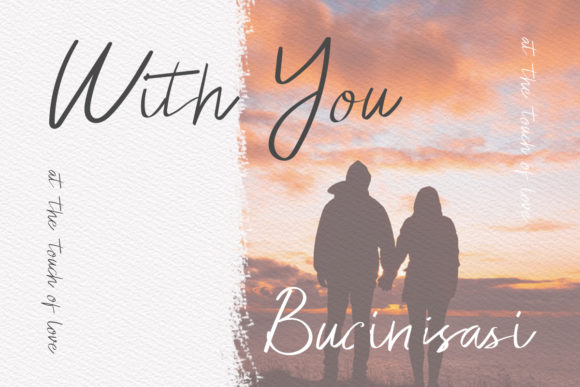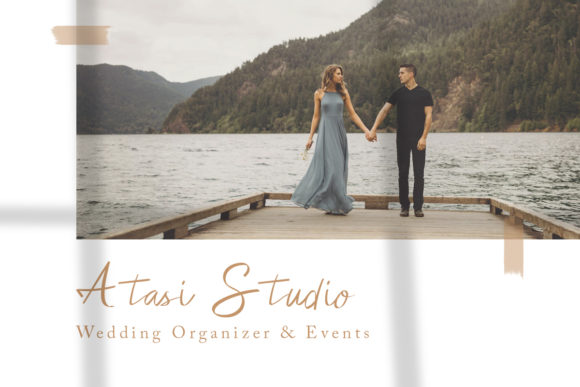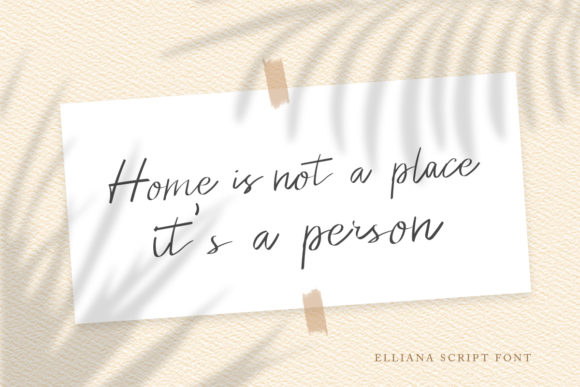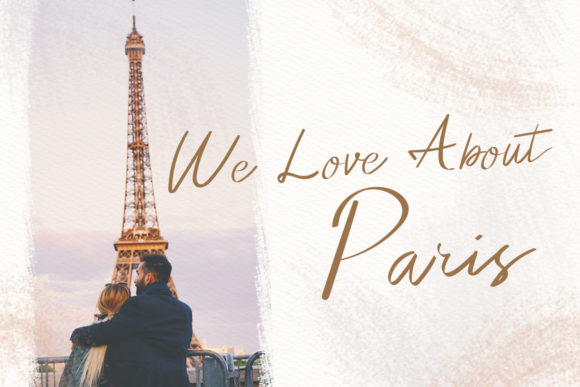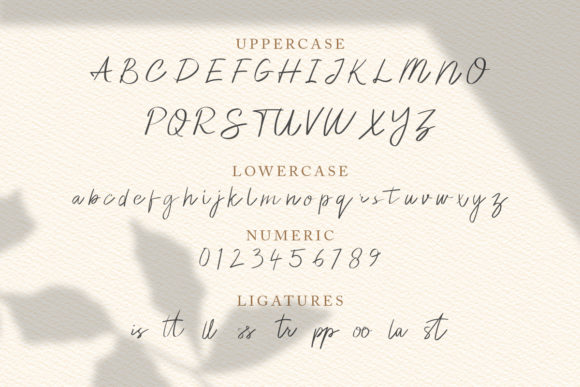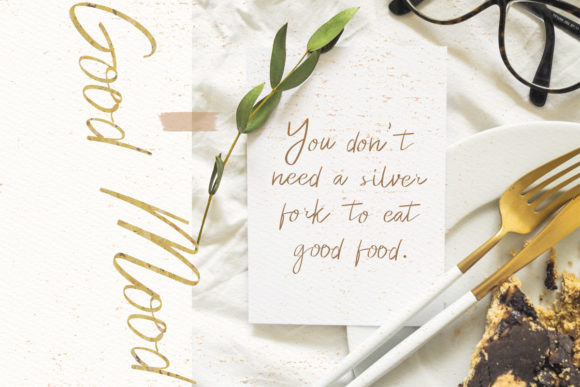
Introducing Elliana Font: A Beautiful Handwritten Script for Your Creative Projects
Are you looking for a unique and elegant font to add a personal touch to your designs? Look no further than Elliana Font, a stunning natural handwritten script created with a brushpen. This gorgeous font is perfect for a variety of projects, from crafting and DIY tutorials to branding and marketing materials.
What is Elliana Font?
Elliana Font is a carefully crafted handwritten script that exudes a sense of warmth and personality. Created with a brushpen, this font features beautiful, flowing lines and a natural, organic feel that is sure to capture the attention of your audience. Whether you’re looking to add a touch of elegance to your designs or create a more playful and whimsical feel, Elliana Font is the perfect choice.
Characteristics of Elliana Font
So, what makes Elliana Font so special? Here are just a few of its key characteristics:
- Natural and organic feel: With its brushpen-created lines and flowing script, Elliana Font has a beautiful, natural feel that is perfect for designs that require a personal touch.
- Elegant and sophisticated: Despite its handwritten nature, Elliana Font is surprisingly elegant and sophisticated, making it perfect for high-end branding and marketing materials.
- Versatile: Whether you’re creating a DIY tutorial, a social media graphic, or a professional brochure, Elliana Font is versatile enough to work beautifully in a variety of contexts.
- Easy to read: Despite its script nature, Elliana Font is surprisingly easy to read, making it perfect for designs that require a clear and concise message.
Uses for Elliana Font
So, what can you use Elliana Font for? The possibilities are endless! Here are just a few ideas to get you started:
- Crafting and DIY tutorials: Add a personal touch to your crafting and DIY tutorials with Elliana Font, perfect for titles, headings, and instructions.
- Branding and marketing materials: Use Elliana Font to add a touch of elegance and sophistication to your branding and marketing materials, from brochures to business cards.
- Social media graphics: Create eye-catching social media graphics with Elliana Font, perfect for Instagram, Facebook, and Twitter.
- Stationery and invitations: Add a personal touch to your stationery and invitations with Elliana Font, perfect for weddings, birthdays, and other special occasions.
Tips for Using Elliana Font
Here are a few tips for getting the most out of Elliana Font:
- Use it sparingly: While Elliana Font is beautiful, it can be overwhelming if used too much. Use it sparingly to add a touch of elegance to your designs.
- Experiment with colors: Elliana Font looks beautiful in a variety of colors, from bold and bright to soft and pastel. Experiment with different colors to find the perfect fit for your design.
- Pair it with other fonts: Elliana Font pairs beautifully with other fonts, from clean and modern sans-serifs to elegant scripts. Experiment with different pairings to find the perfect combination for your design.
In conclusion, Elliana Font is a stunning natural handwritten script that is perfect for a variety of creative projects. With its elegant and sophisticated feel, versatile nature, and easy-to-read design, Elliana Font is sure to become a favorite among designers and crafters alike. So why wait? Download Elliana Font today and start adding a personal touch to your designs!